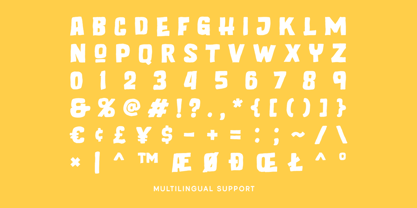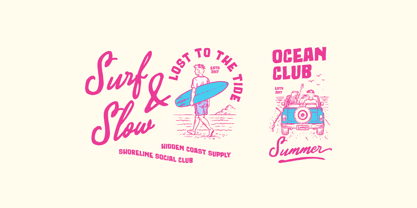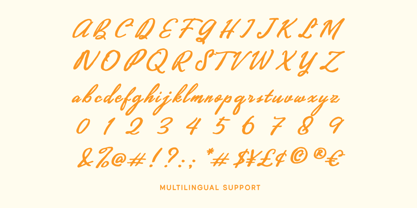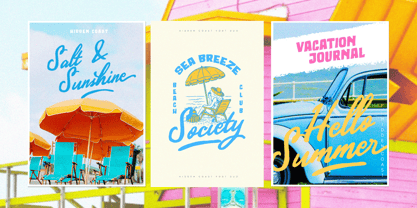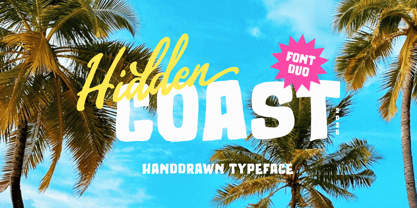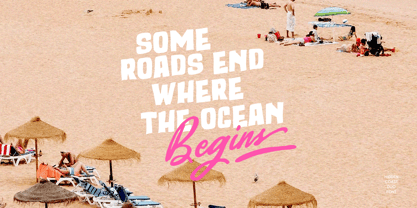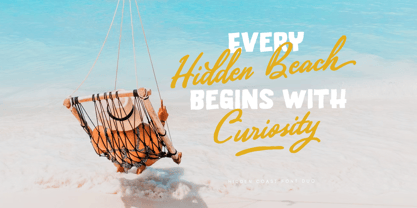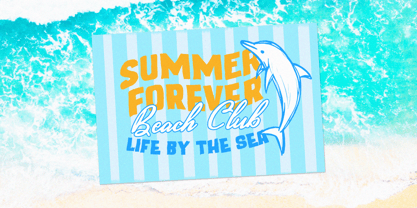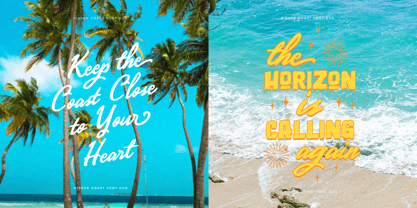
Hidden Coast
by Letterhend
Hidden Coast brings the easygoing spirit of a sun-drenched getaway to your lettering, pairing a lively brush script with a chunky hand-drawn display style full of movement and character. Its bold shapes, loose strokes, and playful rhythm capture the charm of vintage surf posters, beachside signs, summer road trips, and carefree coastal adventures.
Features :
• Uppercase & lowercase
• Numbers and punctuation
• Alternate Characters
• Multilingual Support